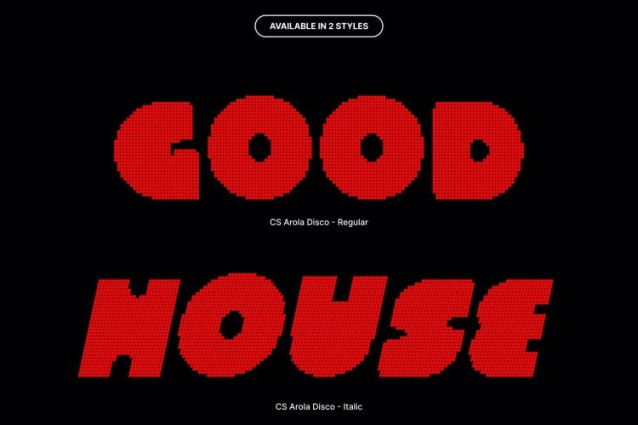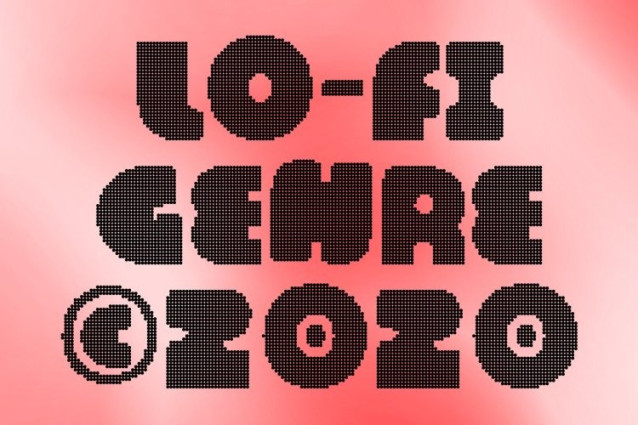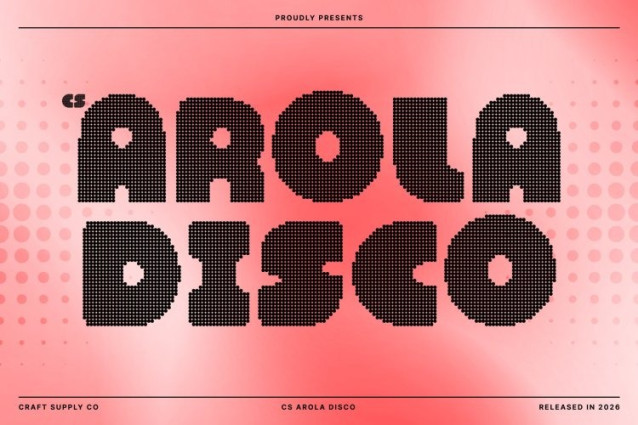
CS Arola Disco Font
CS Arola Disco Font This is a bold display font that combines confident strength with a soft, approachable attitude. Built with chunky letterforms and generous weight, it delivers instant visual impact while maintaining a warm and expressive tone. Every word feels energetic, intentional, and full of presence—perfect for designs that want to stand out effortlessly.
Funky Shapes with Disco-Inspired Playfulness
The defining character of this font lies in its funky, rounded shapes and lively structure. These playful forms create rhythm and movement, enhanced by a disco effect that brings a glamorous party vibe to the design. The result is a font that feels joyful, expressive, and full of life—like flashing lights and music on a crowded dance floor.
Powerful Weight with Soft, Energetic Appeal
Despite its heavy weight, this font remains smooth and inviting. Softened edges and balanced proportions create a striking contrast between bold power and friendly charm. This harmony ensures strong visibility from a distance while keeping the typography comfortable, readable, and visually engaging.
Perfect for Expressive Branding and Festive Design
This font shines in headlines, posters, packaging, social media graphics, and bold branding projects. Its chunky presence, funky personality, and energetic disco flair make it ideal for creative campaigns that aim to feel modern, glamorous, festive, and unforgettable turning every design into a confident visual celebration.